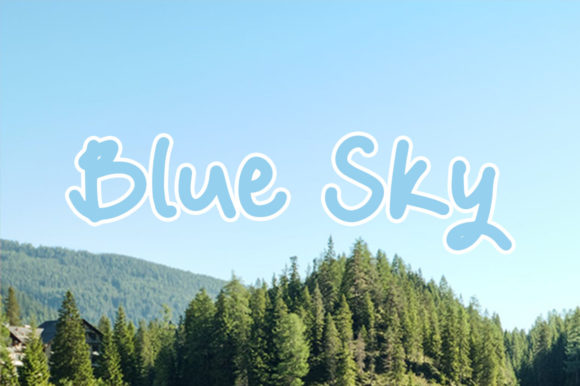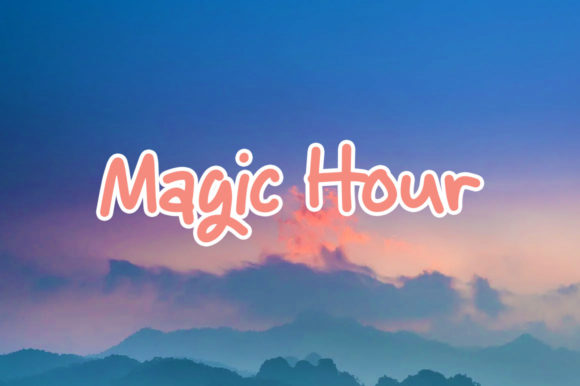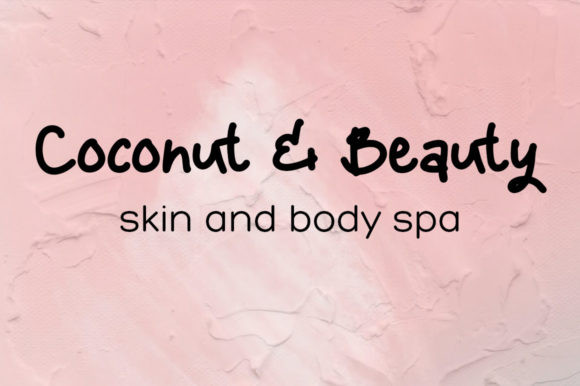
About Mayang Font
Mayang is a cheerful handwritten font that looks friendly and modern. It is suitable for all designs that require cheerful, fun, and happy characters, such as children’s designs, party invitations, birthday cards, storybooks, and more.